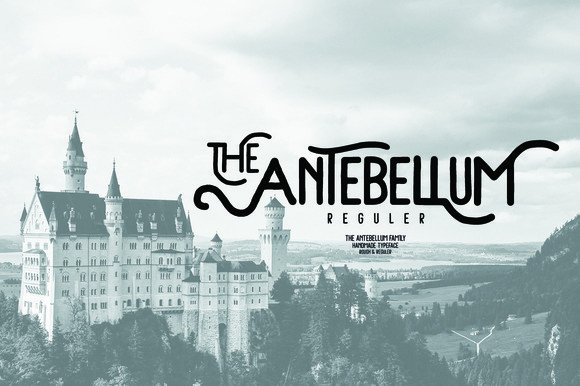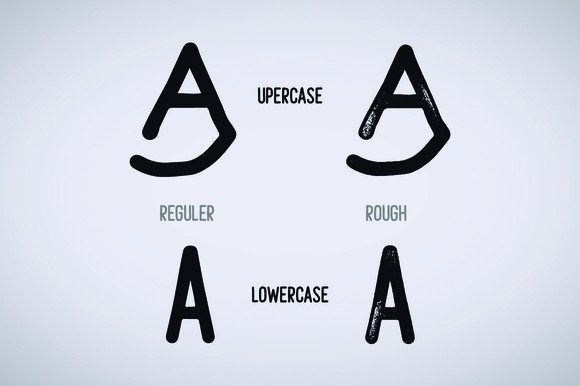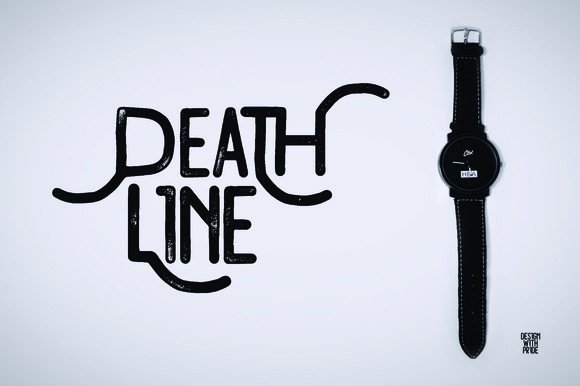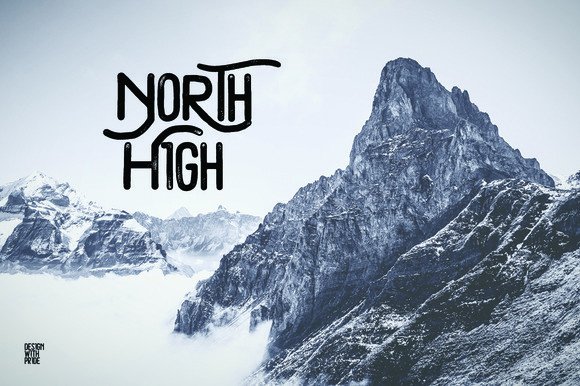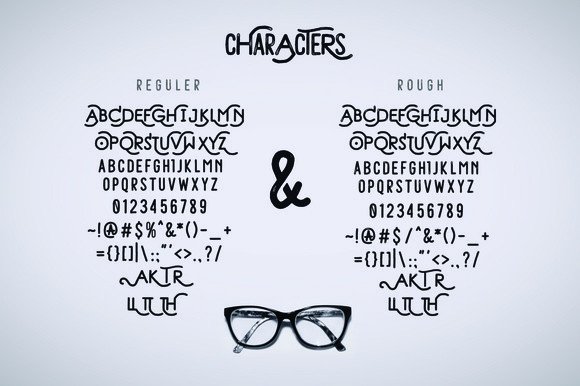
Introducing Antebellum Font: A Timeless Vintage-Inspired Display Font
In the world of typography, fonts play a crucial role in conveying the tone and aesthetic of a design. For designers and crafters looking for a font that exudes elegance, sophistication, and a touch of nostalgia, Antebellum Font is an excellent choice. This vintage-inspired display font is perfect for a wide range of applications, from headings and logos to wedding invitations and posters.
What is Antebellum Font?
Antebellum Font is a carefully crafted display font that draws inspiration from the classic typography of the antebellum era. Its vintage charm and character make it an ideal choice for designers seeking to add a touch of nostalgia and elegance to their designs. The font’s unique and intricate design elements evoke a sense of luxury, making it perfect for high-end branding, advertising, and marketing materials.
Key Features of Antebellum Font
- Vintage-Inspired Design: Antebellum Font boasts a distinctive vintage flair, reminiscent of classic typography from the 19th century.
- Highly Versatile: This font can be used for a wide range of applications, including headings, logos, wedding invitations, t-shirts, letterheads, signages, labels, news, posters, badges, and more.
- Elegant and Sophisticated: Antebellum Font exudes elegance and sophistication, making it perfect for designs that require a touch of luxury and refinement.
- Easy to Read: Despite its ornate design, Antebellum Font remains highly legible, ensuring that your message is conveyed clearly and effectively.
Uses of Antebellum Font
Antebellum Font’s versatility makes it an excellent choice for various design projects. Here are some of the many ways you can use this beautiful font:
- Wedding Invitations: Add a touch of elegance and sophistication to your wedding invitations with Antebellum Font.
- Logos and Branding: Create a lasting impression with a custom logo or branding material that showcases your company’s personality and style.
- Posters and Flyers: Grab attention with eye-catching posters and flyers that feature Antebellum Font’s unique and intricate design.
- T-Shirts and Apparel: Create stylish and memorable apparel with Antebellum Font’s elegant and sophisticated design.
- Signages and Labels: Use Antebellum Font to create visually appealing signages and labels that capture the essence of your brand.
Tips for Using Antebellum Font
To get the most out of Antebellum Font, here are some valuable tips to keep in mind:
- Pair with Simple Fonts: Balance Antebellum Font’s intricate design by pairing it with simple, clean fonts for body text.
- Use for Headings and Titles: Take advantage of Antebellum Font’s elegance and sophistication by using it for headings and titles.
- Experiment with Colors: Try out different color schemes to find the perfect combination that complements Antebellum Font’s vintage charm.
| Font Name | Antebellum Font |
| Author | Giemons |
Antebellum Font is a timeless vintage-inspired display font that offers a unique blend of elegance, sophistication, and nostalgia. Its versatility and highly legible design make it an excellent choice for designers and crafters looking to add a touch of luxury to their designs. Whether you’re creating wedding invitations, logos, posters, or apparel, Antebellum Font is sure to make a lasting impression.